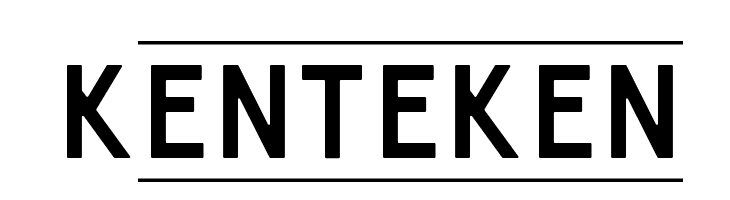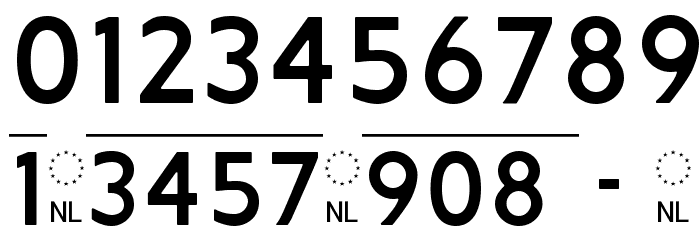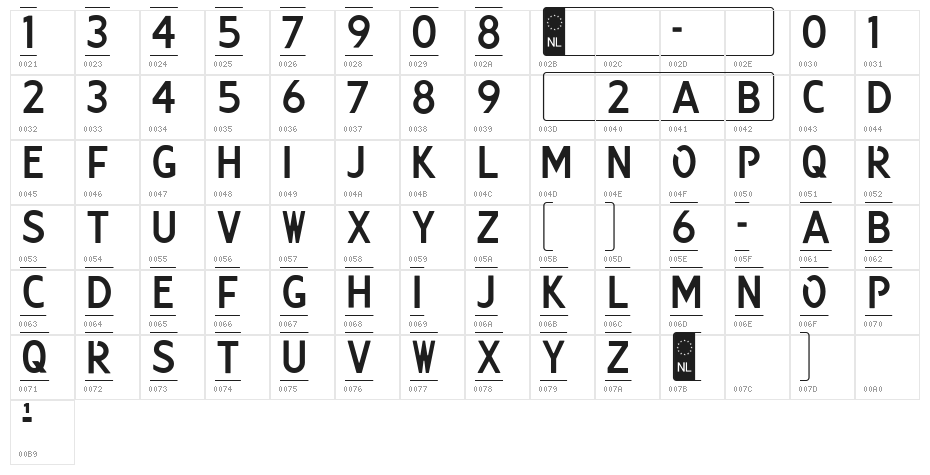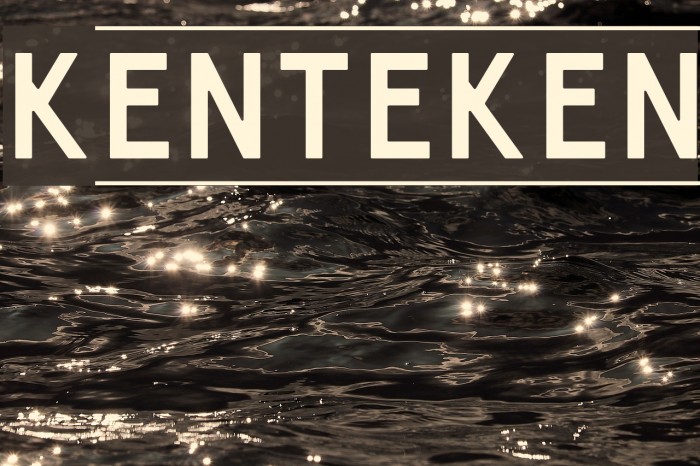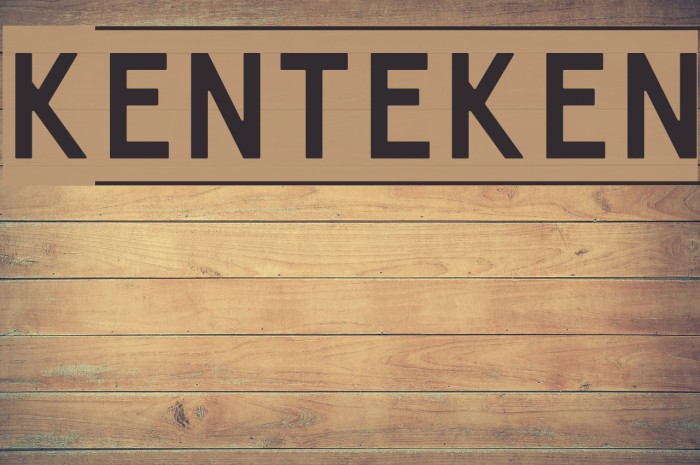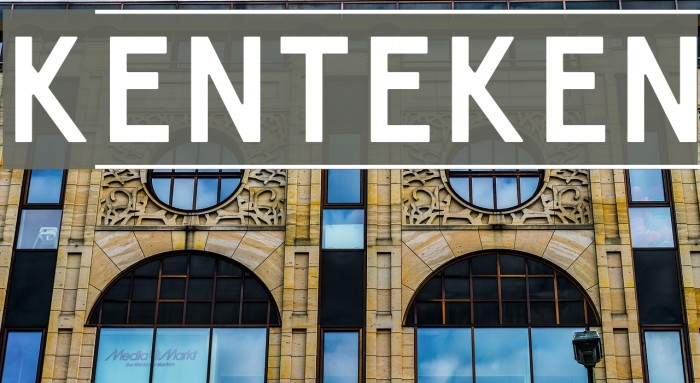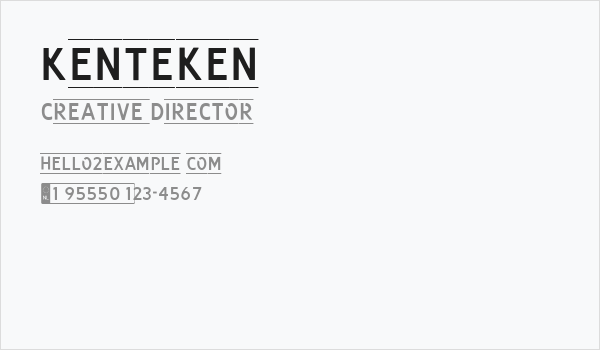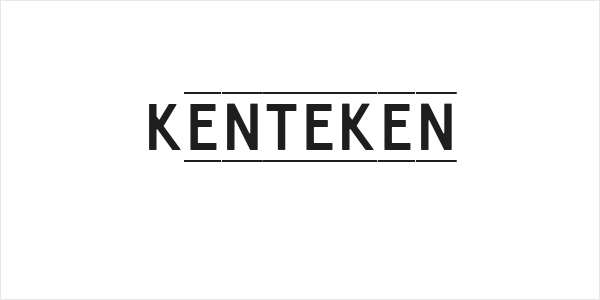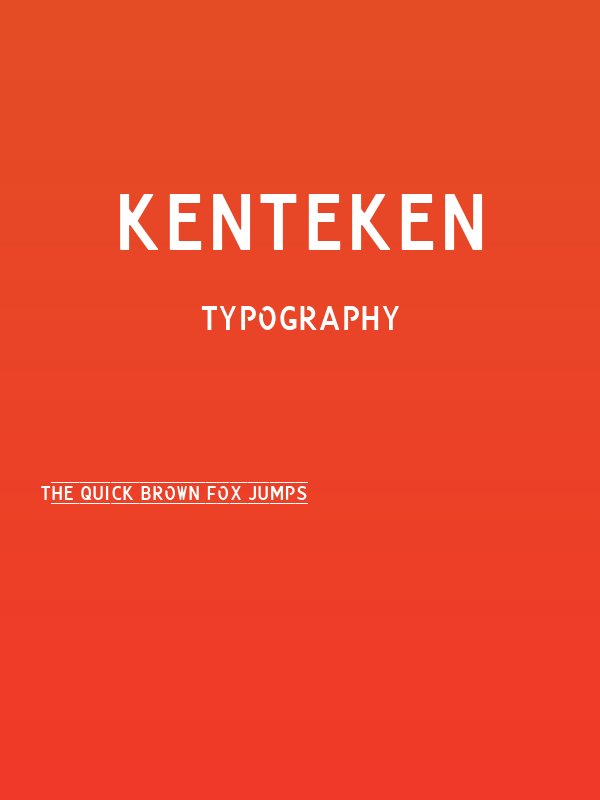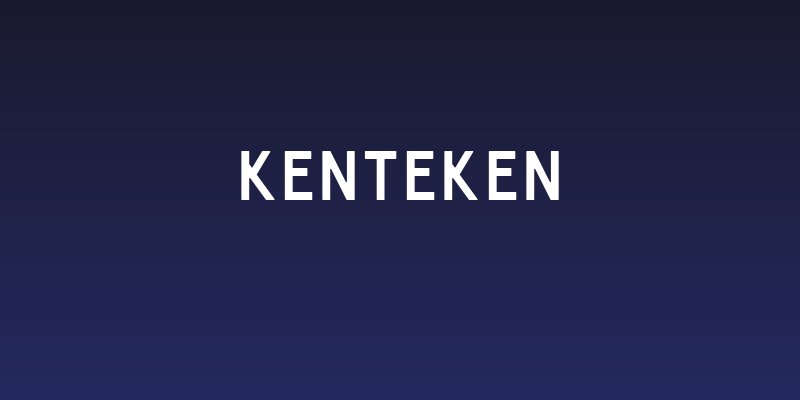
Kenteken Font
Kenteken Description
This font features a clean, geometric design with uniform stroke widths, making it highly legible and suitable for various applications. The uppercase letters are bold and evenly spaced, providing a strong visual impact. The numerals are clear and distinct, ensuring readability even at a distance. The special characters are well-integrated, maintaining the overall aesthetic of the font. Its modern and functional style makes it ideal for use in signage, particularly for vehicle registration plates, where clarity and readability are paramount.
| Use Case | Signage, Registration plates |
| Proposed Projects | This font is perfect for vehicle registration plates, road signage, and any project requiring high legibility and clarity. |